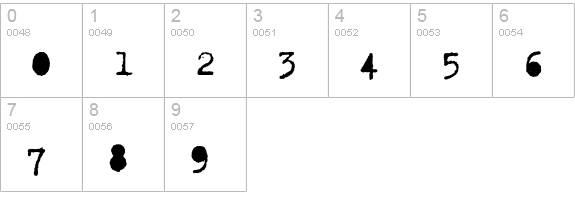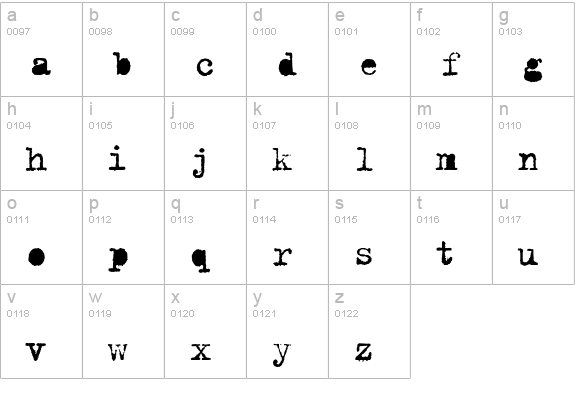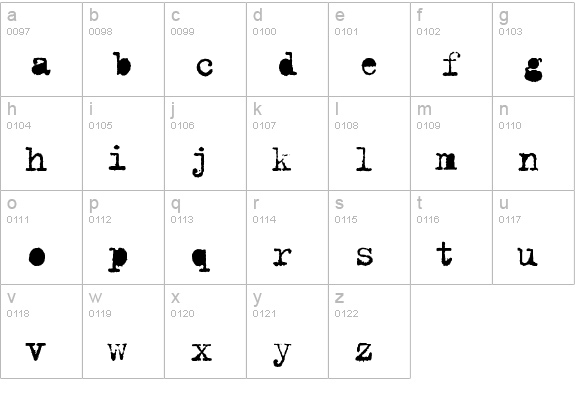
TrixieExtra is a stunning and unique font that will surely elevate any design project. With its bold and eye-catching letterforms, this font exudes a sense of daring and creativity. It is perfect for creating attention-grabbing headlines, logos, branding materials, and more. The distinctive character of TrixieExtra lies in its exaggerated curves and exaggerated strokes, giving each letter a playful and energetic personality. Its vibrant and dynamic appearance makes it an excellent choice for projects that require a touch of excitement and originality. One of the most remarkable aspects of TrixieExtra is that it is available for free download at FontsMarket.com. This means that you can easily access this amazing font without any cost, allowing you to enhance your designs without breaking the bank. Whether you are a professional designer or simply someone who appreciates beautiful typography, TrixieExtra is a must-have addition to your font collection. Its versatility and captivating style will undoubtedly add a touch of brilliance to any project you undertake. So don't miss the opportunity to experience the magic of TrixieExtra – download it freely at FontsMarket.com today!